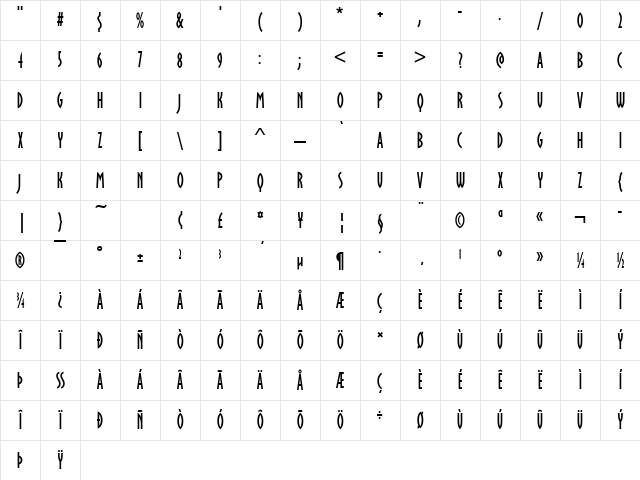
URWOklahomaD Regular
URWOklahomaD Family
Design Context for URWOklahomaD
URWOklahomaD is a composed and adaptable typeface that performs quietly and consistently across a wide range of design contexts.